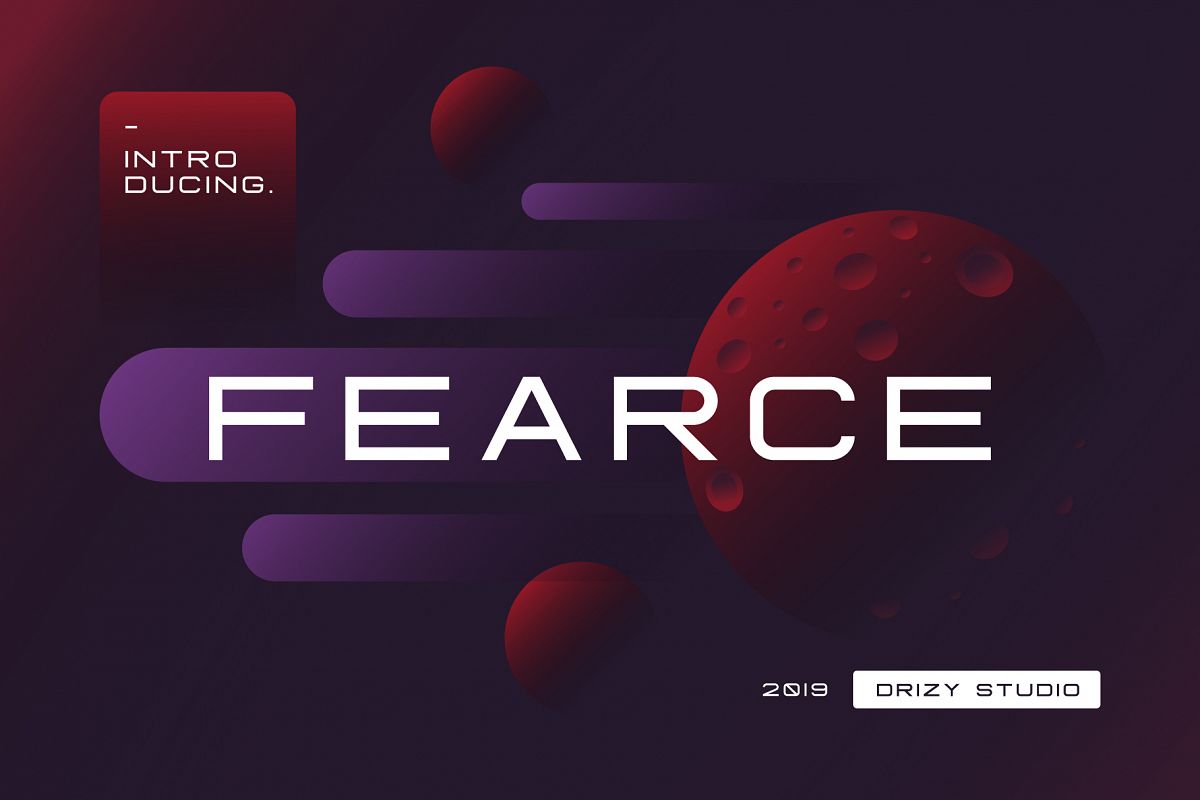
Fearce Typeface & Space Flyer
Introducing Fearce! a new sans serif font from drizy! This minimalistic and modern all-caps serif typeface . With upper case characters, numbers and punctuation. Perfect for gorgeous logos & titles, Fearce will pair cool with many fonts and work well with whatever project you're working on.